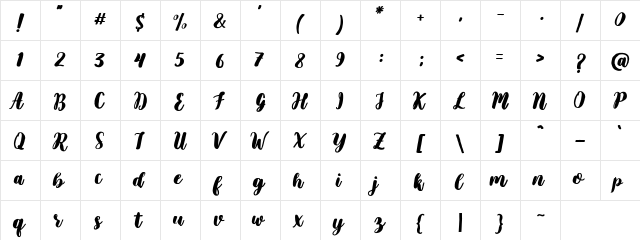
filsafat Brush
| Style | Brush |
| Foundry | Best Font Studio |
| Designer | Rifan Asri |
filsafat flows with the natural rhythm of handwritten lettering, making it ideal for designs that call for warmth and personal expression.